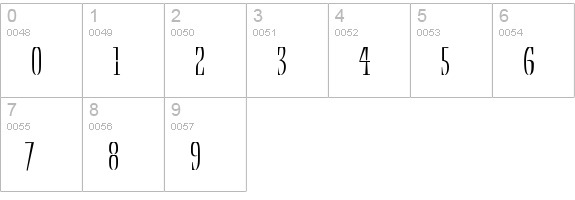
Ecru Font Details
Ecru font is a stunning and versatile typeface that exudes elegance and sophistication. Its timeless design combines classic letterforms with a modern twist, making it the perfect choice for a wide range of projects. With its clean lines and balanced proportions, Ecru font is incredibly legible and easy on the eyes, making it ideal for both print and digital media. Whether you're creating a logo, designing a website, or crafting a beautiful invitation, Ecru font will add a touch of refinement to your work. What's even better is that Ecru font is completely free! Yes, you read that right. This exceptional font is freely available to download at FontsMarket.com, a trusted source for high-quality fonts. So, you can enhance your designs without breaking the bank. The versatility of Ecru font is evident in its extensive character set, supporting multiple languages and providing a wide range of glyphs, including ligatures and alternates. This allows you to truly customize your designs and create unique compositions that stand out from the crowd. Ecru font's warm and inviting personality is sure to captivate your audience and leave a lasting impression. Its subtle curves and graceful details give it a refined charm that is both timeless and contemporary. So, why wait? Download Ecru font for free at FontsMarket.com and elevate your design projects to new heights. Whether you're a professional designer or a creative enthusiast, this font will undoubtedly become a valuable tool in your typographic arsenal. Experience the beauty and versatility of Ecru font today and let your creativity soar.